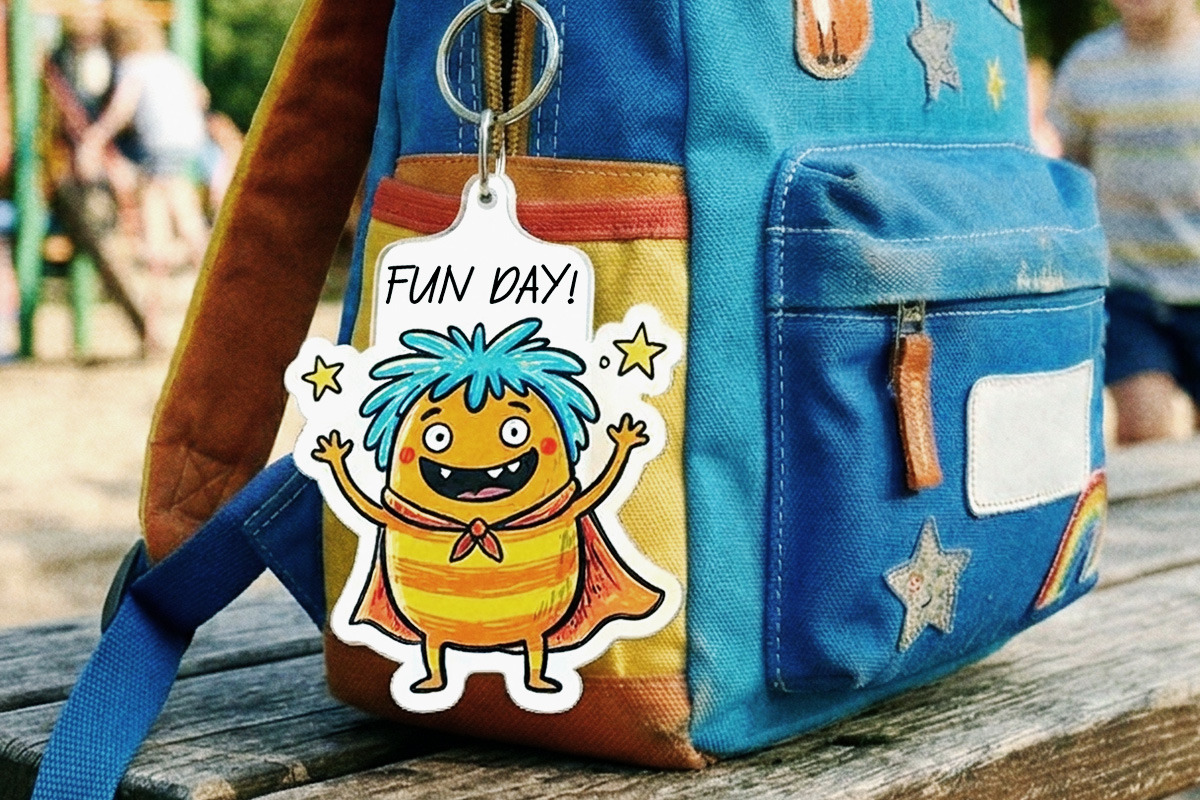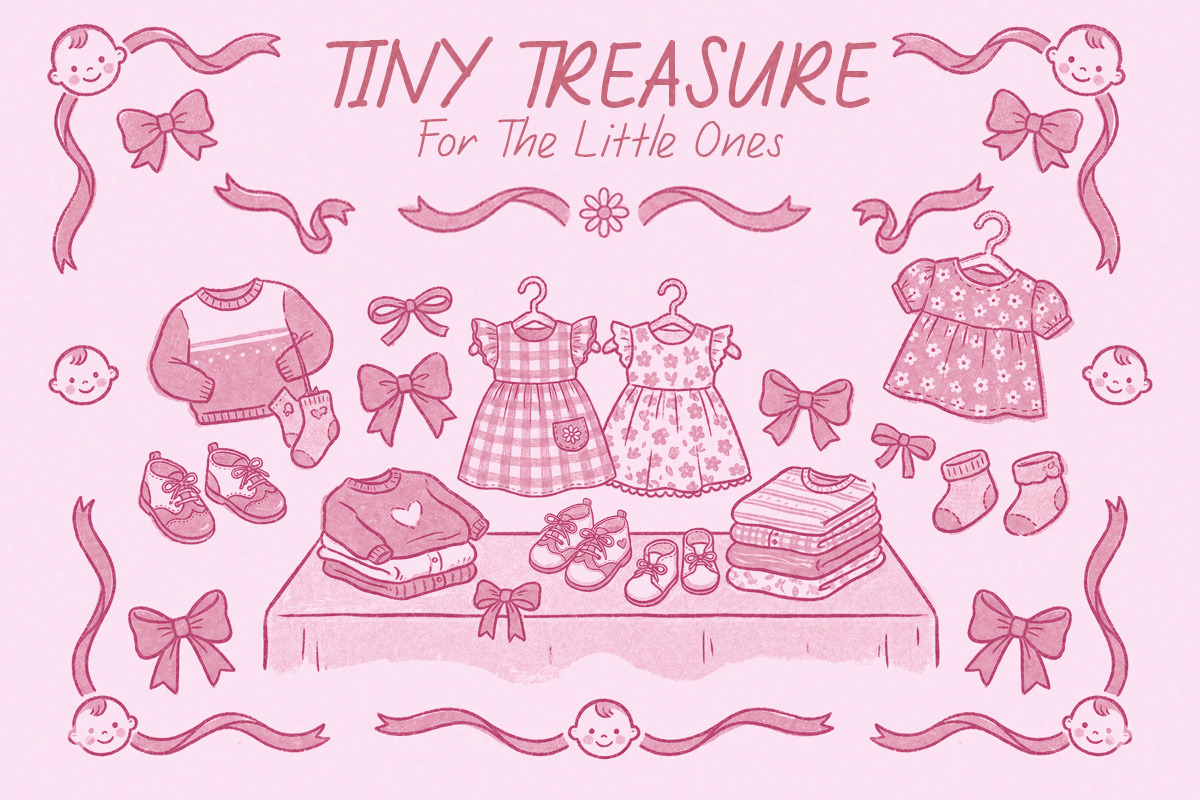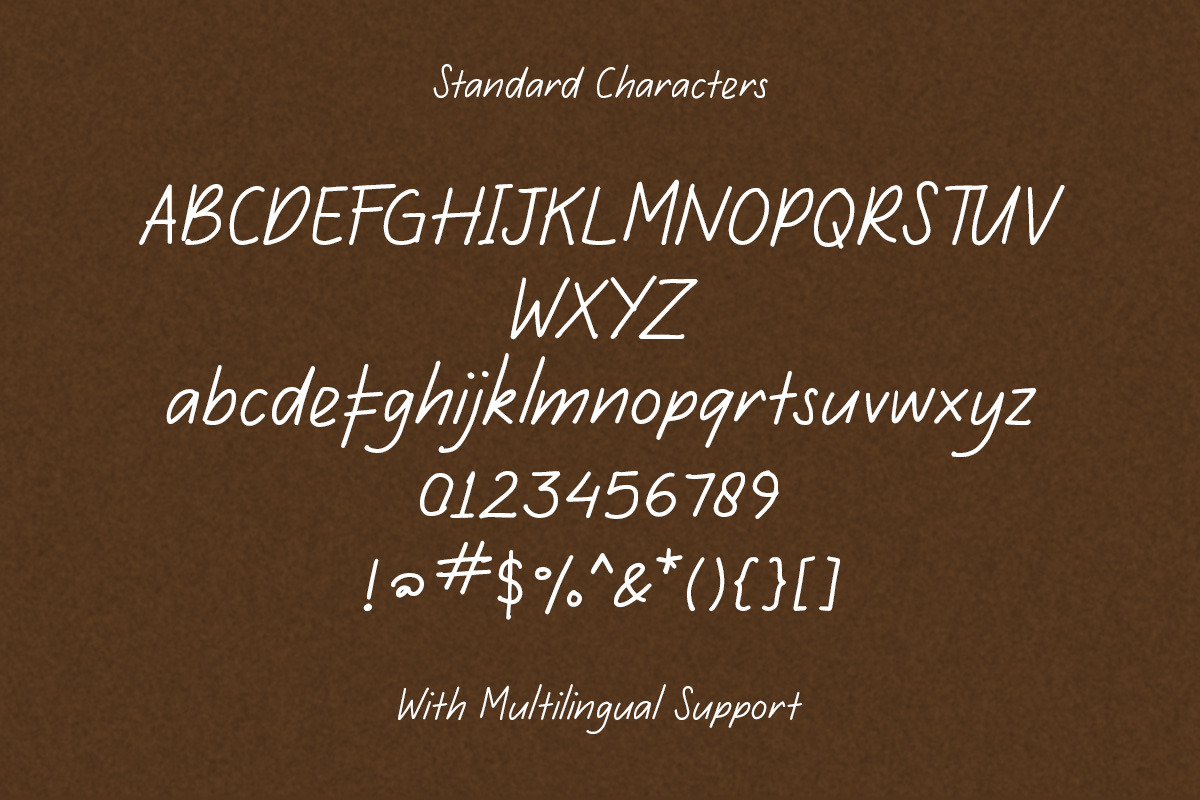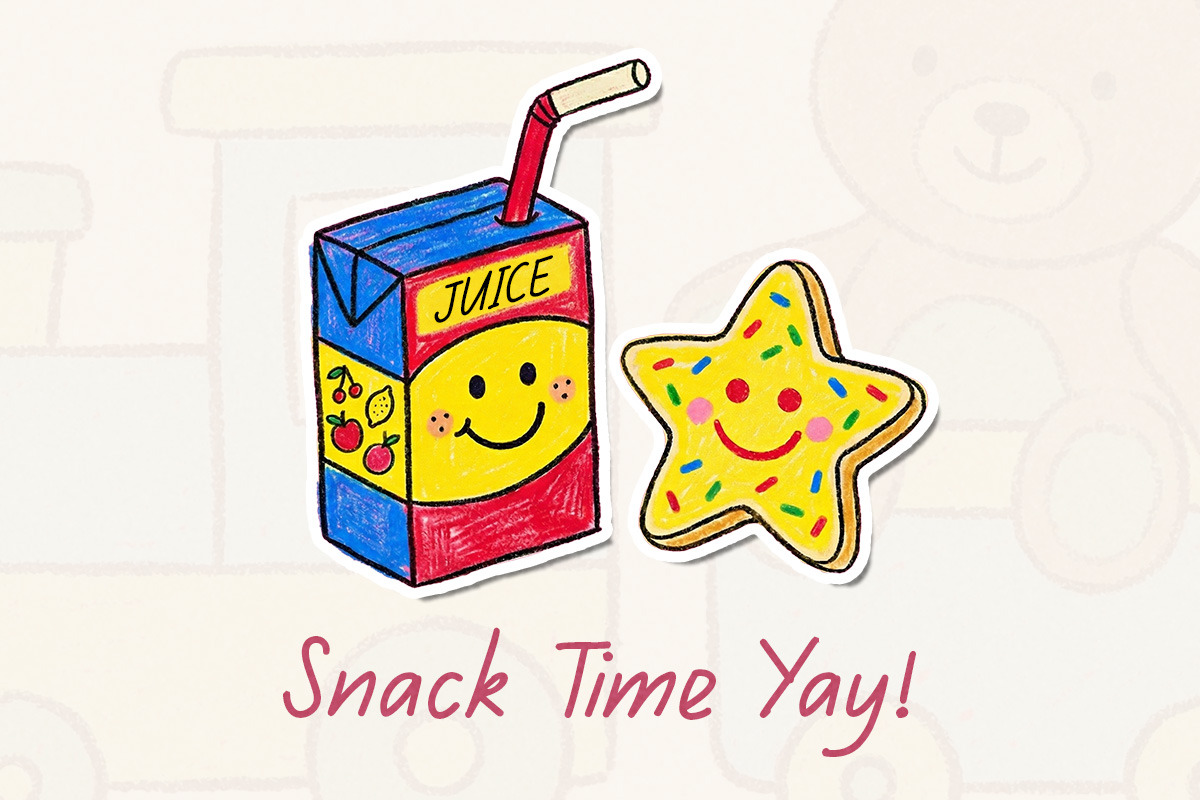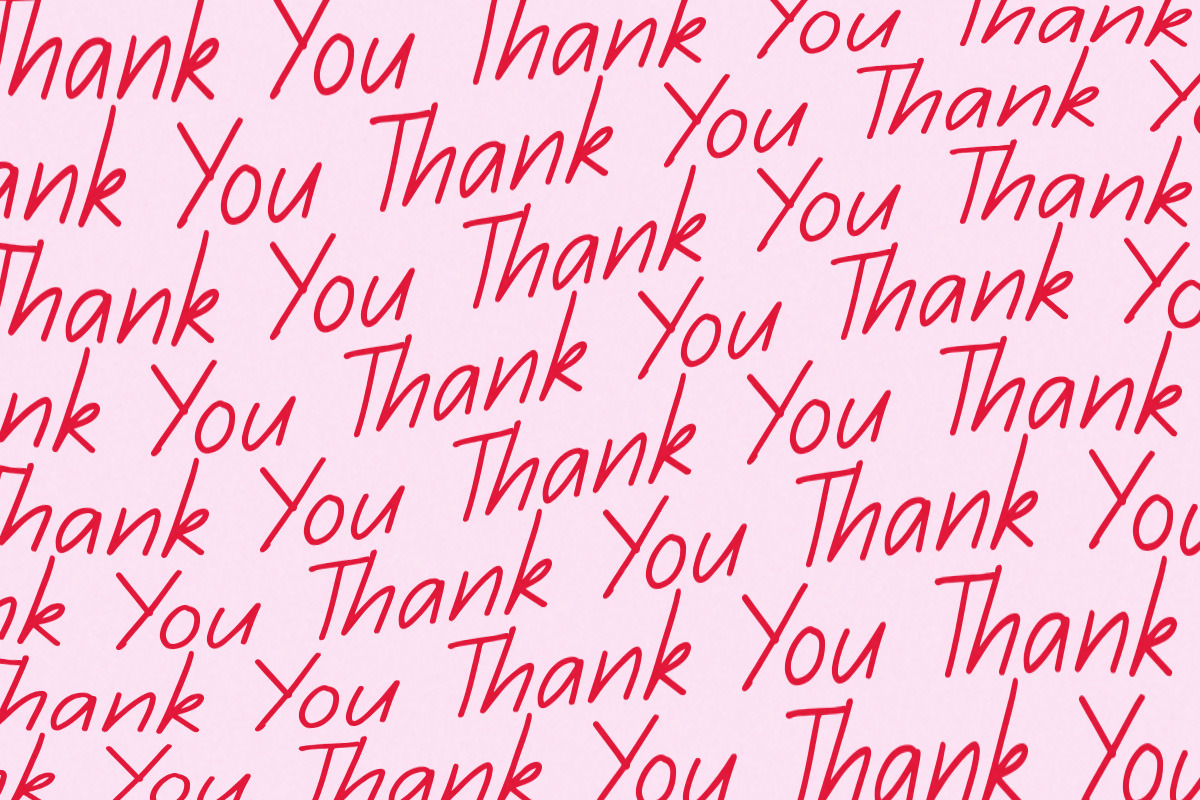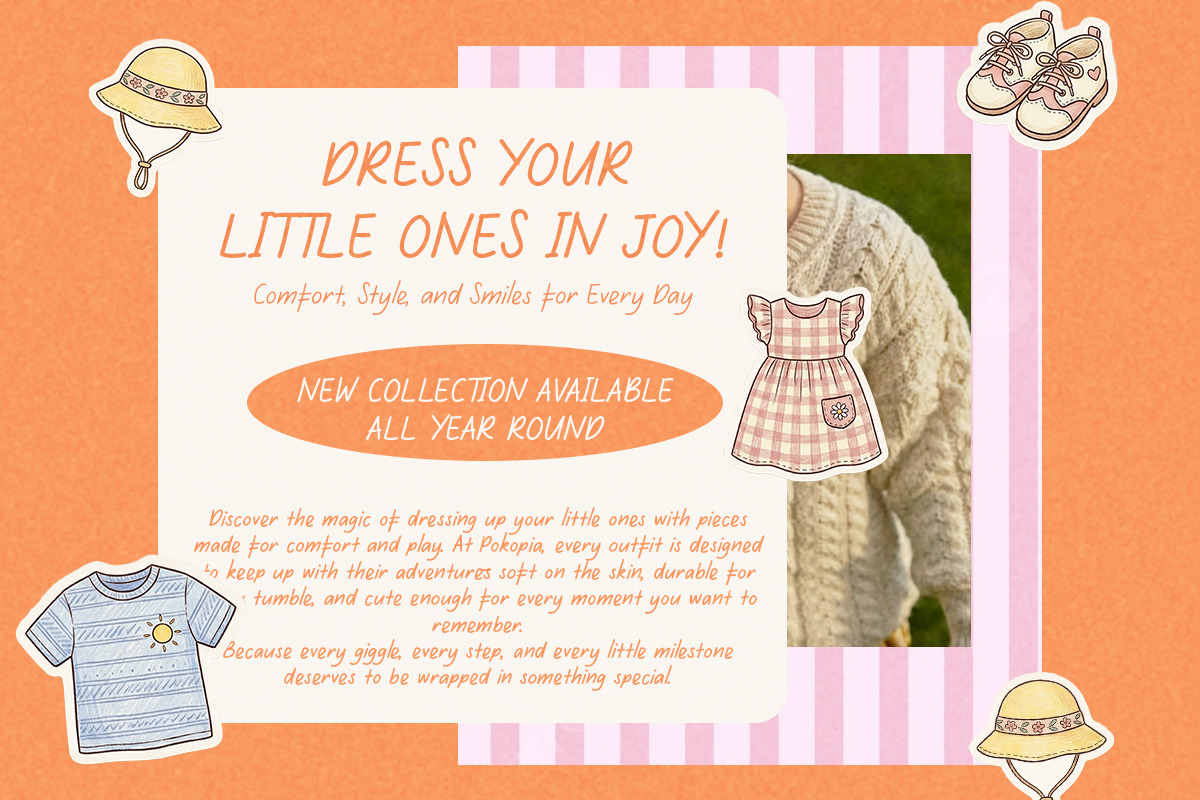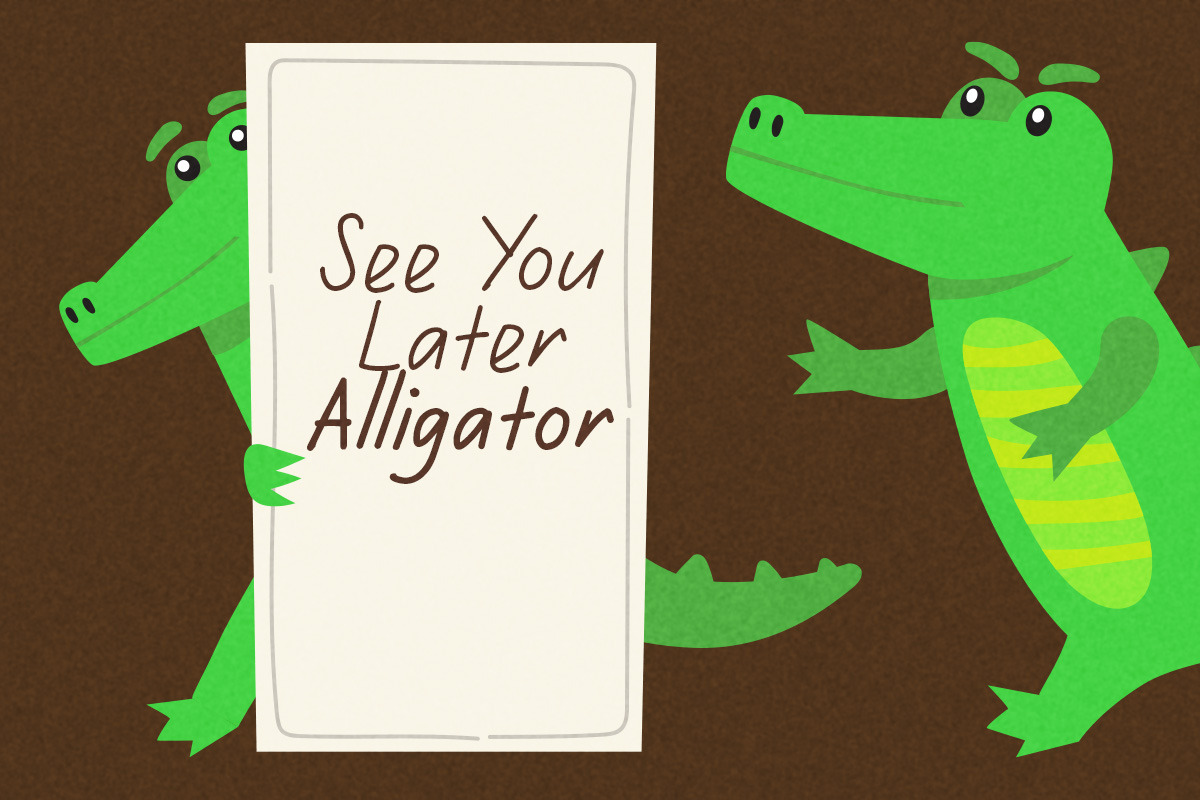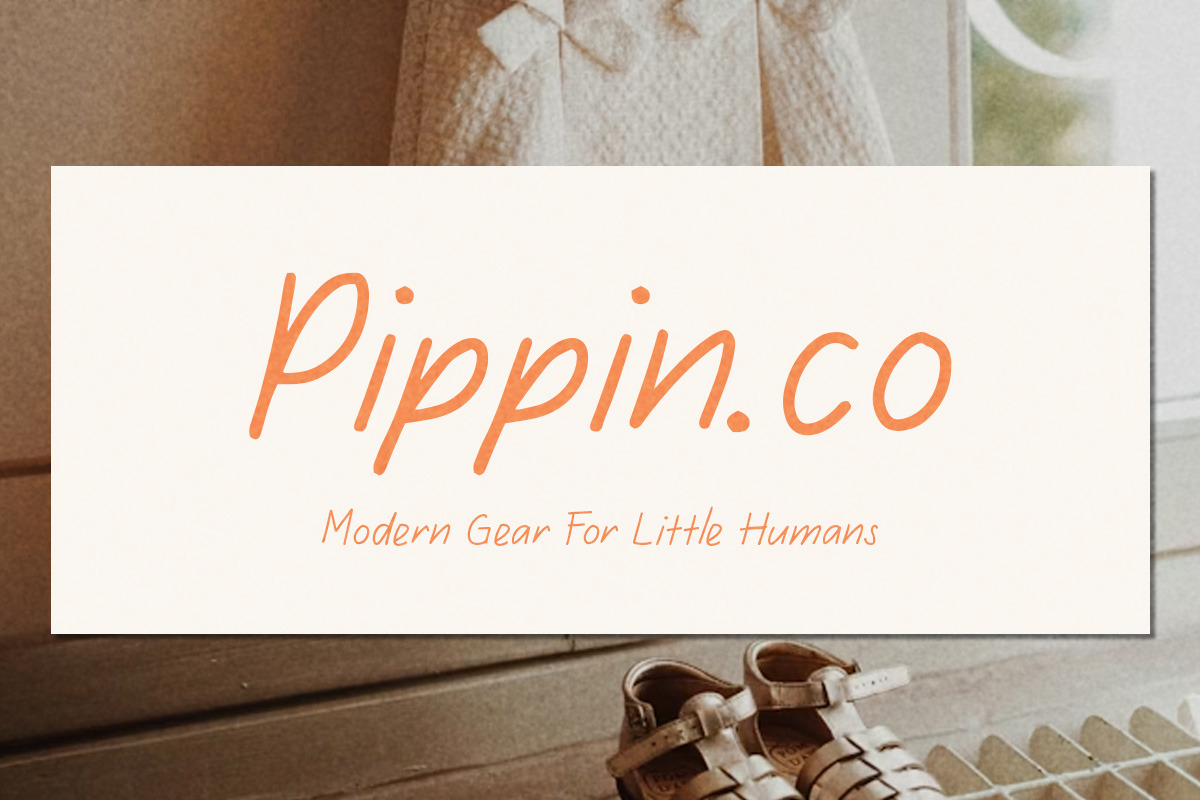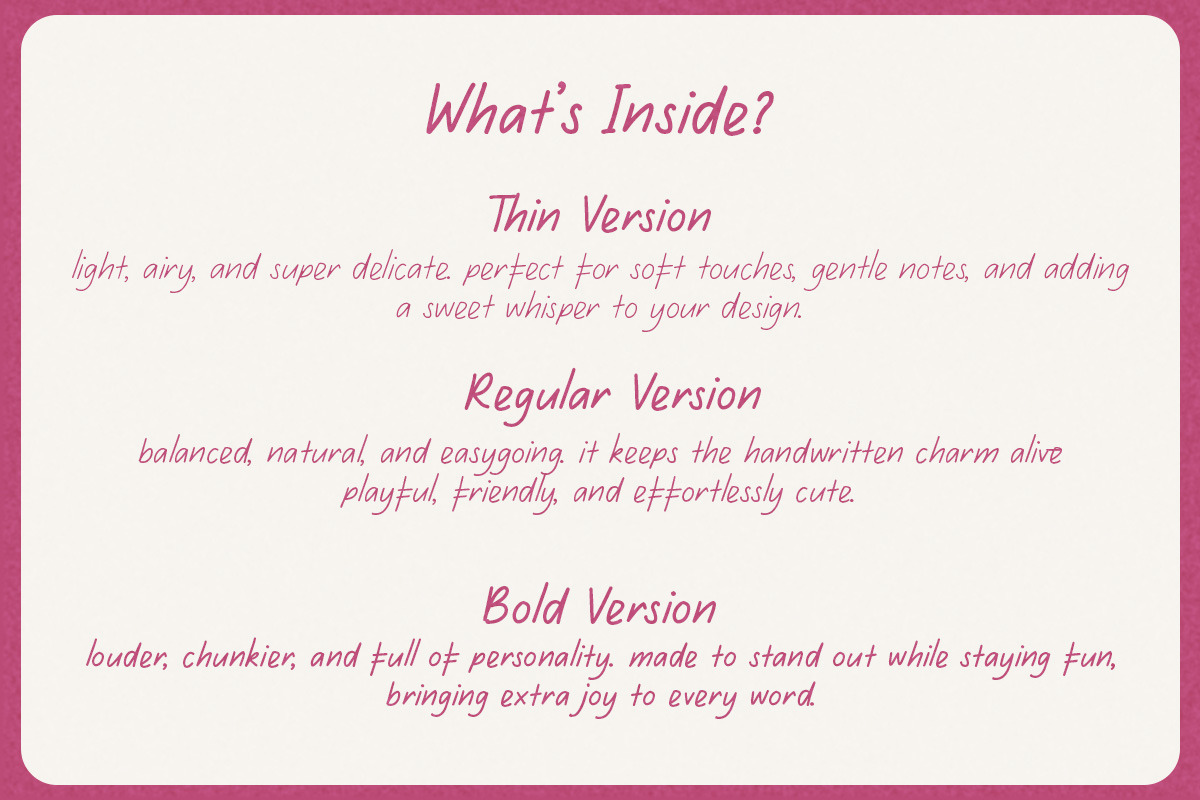
Said The Owl Casual Handwriting
Said The Owl is a sweet and easygoing handwritten font that feels like a cozy little note scribbled on a quiet afternoon. With its soft, slightly bouncy strokes and natural flow, this font brings a warm, friendly charm that looks effortlessly cute without trying too hard.